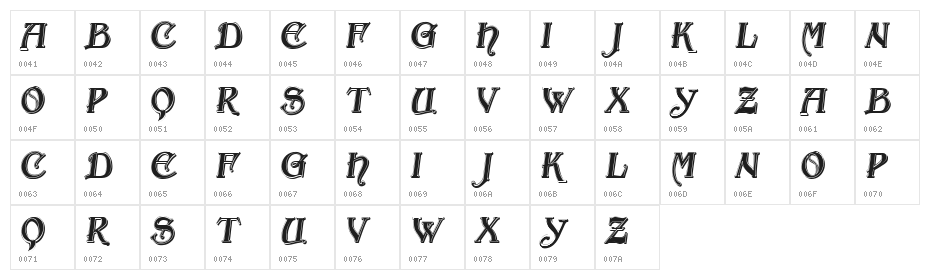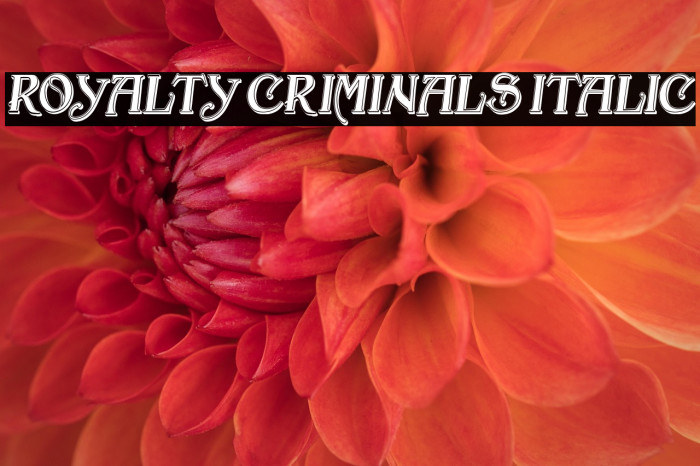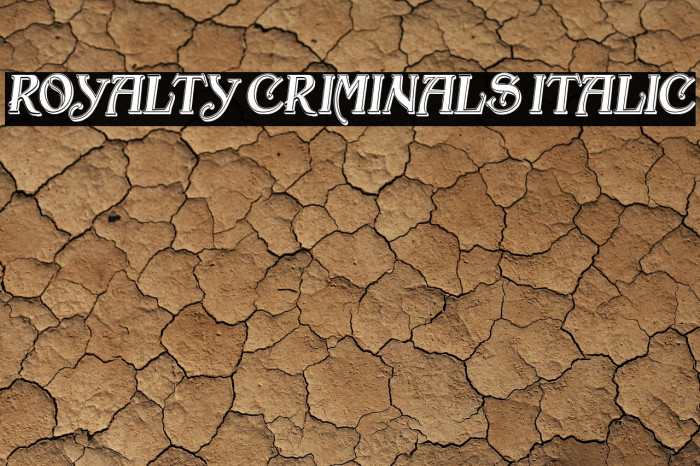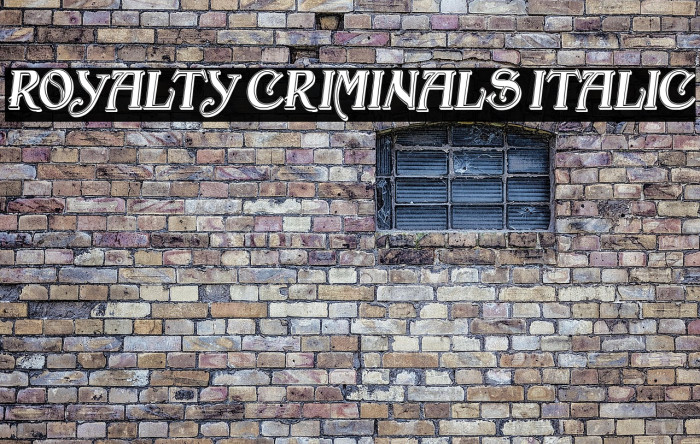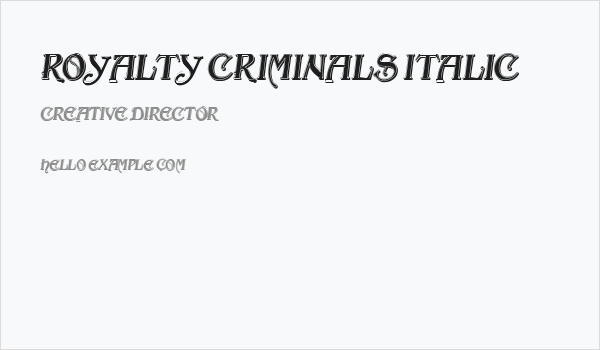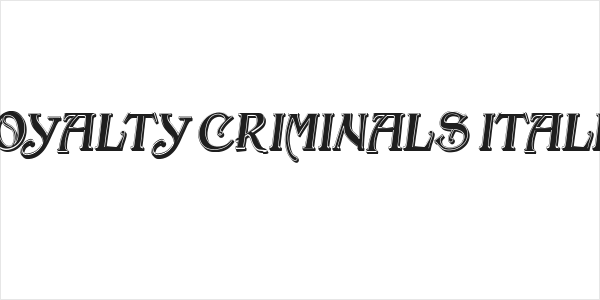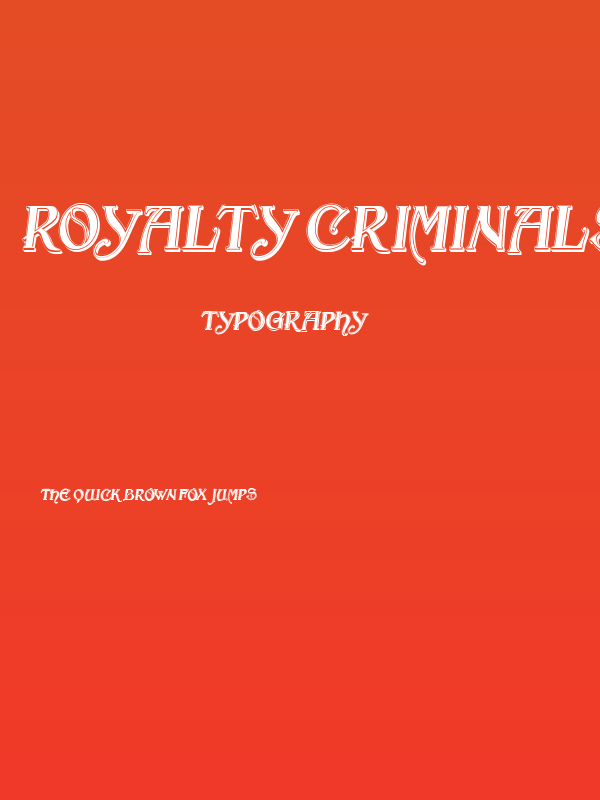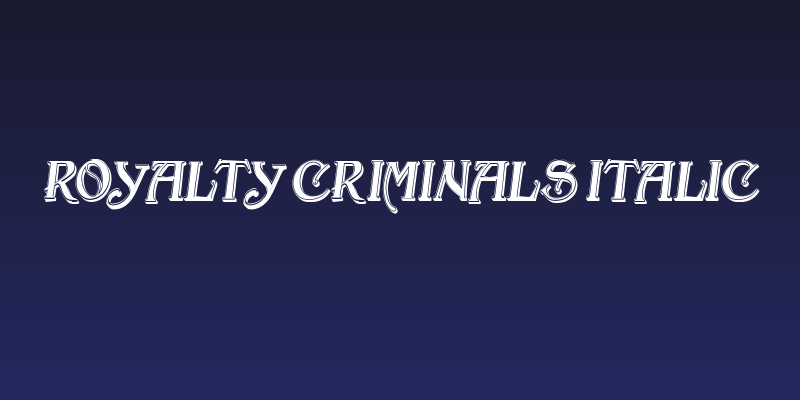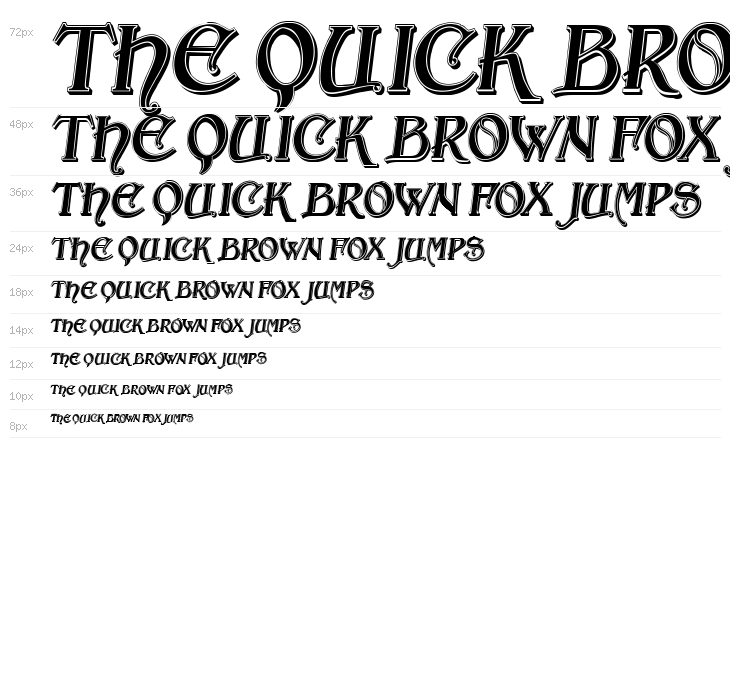
Royalty Criminals Italic Font
Royalty Criminals Italic Description
This font features a bold and decorative style with a distinct italic slant, giving it a dynamic and elegant appearance. The characters are adorned with intricate serifs and flourishes, adding a touch of sophistication and flair. The uppercase letters are particularly striking, with their elaborate curves and sharp edges, while the lowercase letters maintain a consistent style that complements the overall design. The numbers and special characters are equally ornate, ensuring a cohesive look across all text elements. This font is ideal for projects that require a dramatic and eye-catching typeface.